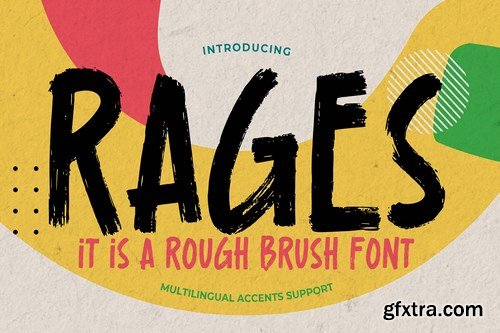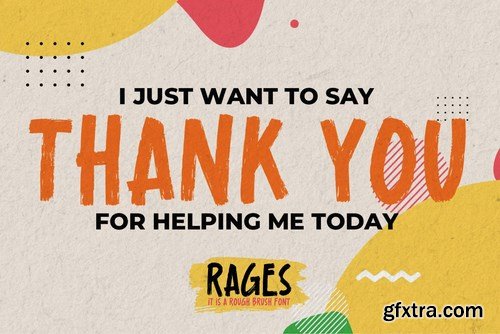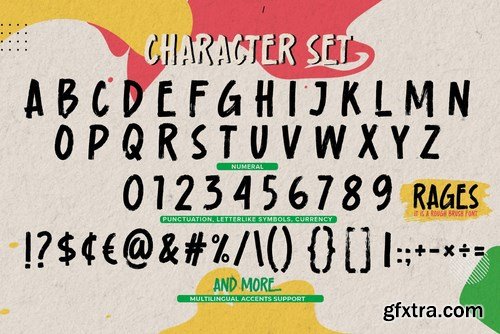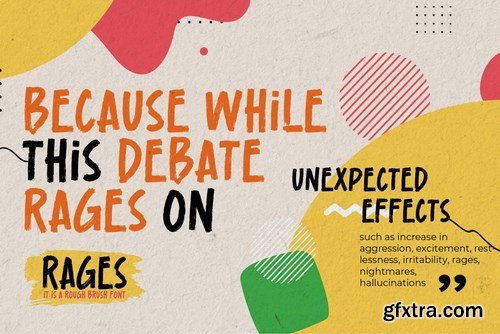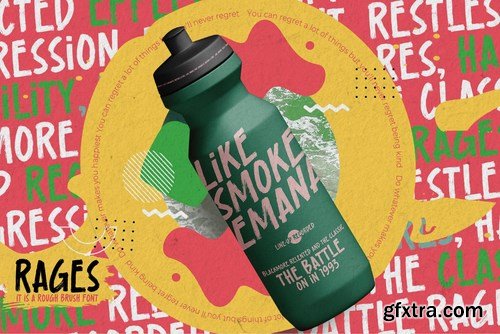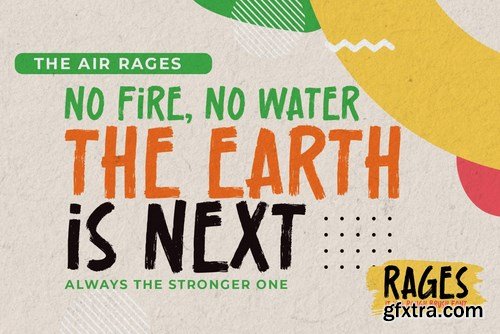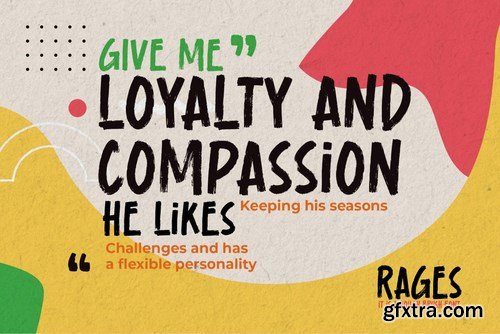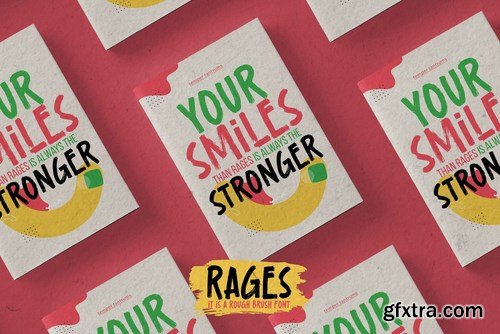
Here comes a New font,Introducing Rages It's A Rough Brush Font is a Signature Style and classy style, this font is great for your creative projects such as watermark on photography, and perfect for logos & branding, invitation,advertisements,product designs, stationery, wedding design,label ,product packaging, special events or anything that need handwritting taste.
Rages is a natural Hand Drawn feel. This handmade font will make your design has a beautiful natural touch for each details. It is perfect for any design project as Invitation,logo, book cover, craft or any design purposes,photos, photography overlays, signs, window art, scrapbooking, tags and so much more!
Standard glyphs
Multilingual